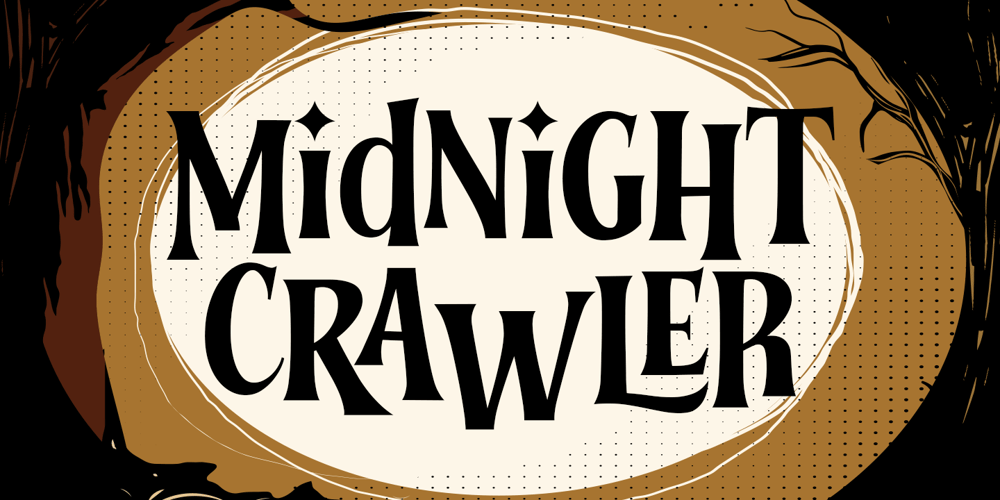
Midnight Crawler
Midnight Crawler font
Midnight Crawler Font Family was designed by Novitasari Romli and published by Novitype. Midnight Crawler contains 1 styles and family package options. Introducing Midnight Crawler, a playful horror font. This font also has scary, spooky, joyful, and fun looks at the same time! Inspired by horror cartoons and fantasy movies. It’s perfect for headings, posters, stickers, packaging, flyer, quotes, and more!What you’ll get : Uppercase Lowercase Numbers Symbols & punctuation Stylistic alternates Ligatures Multilingual support